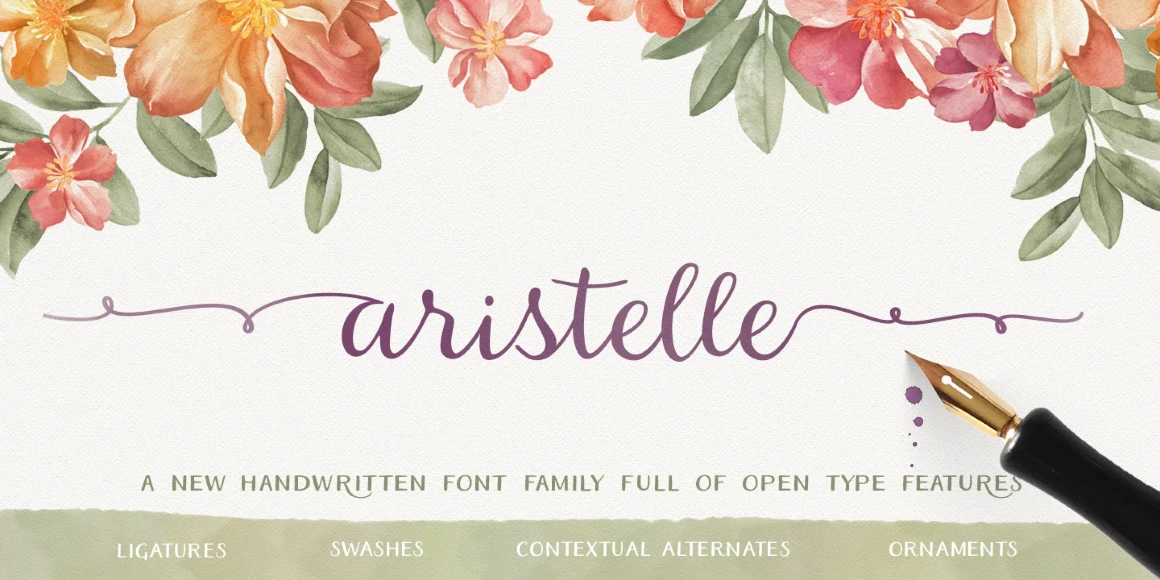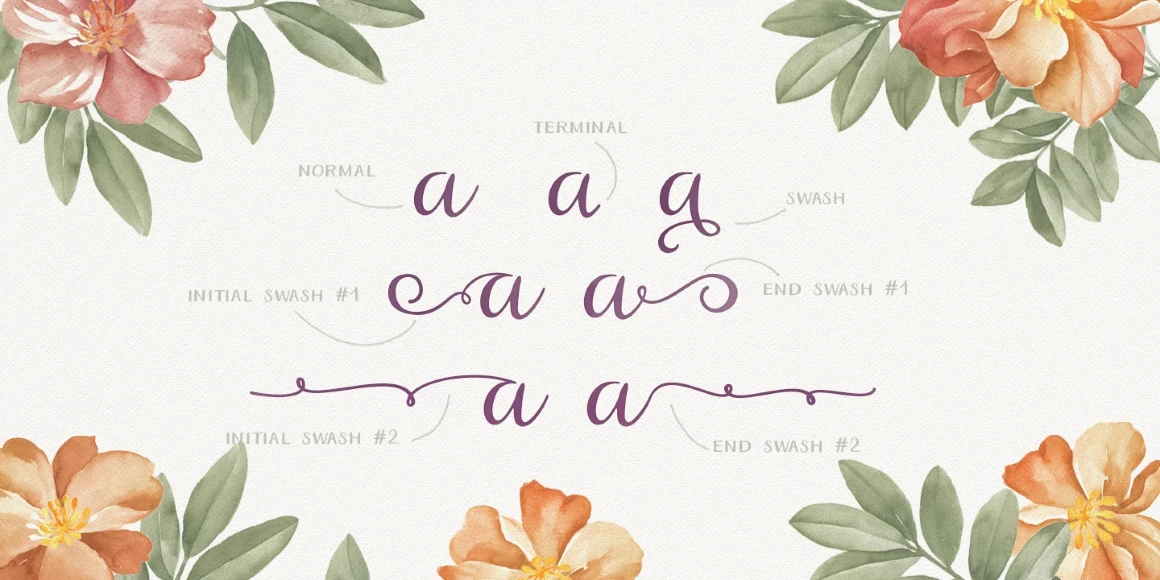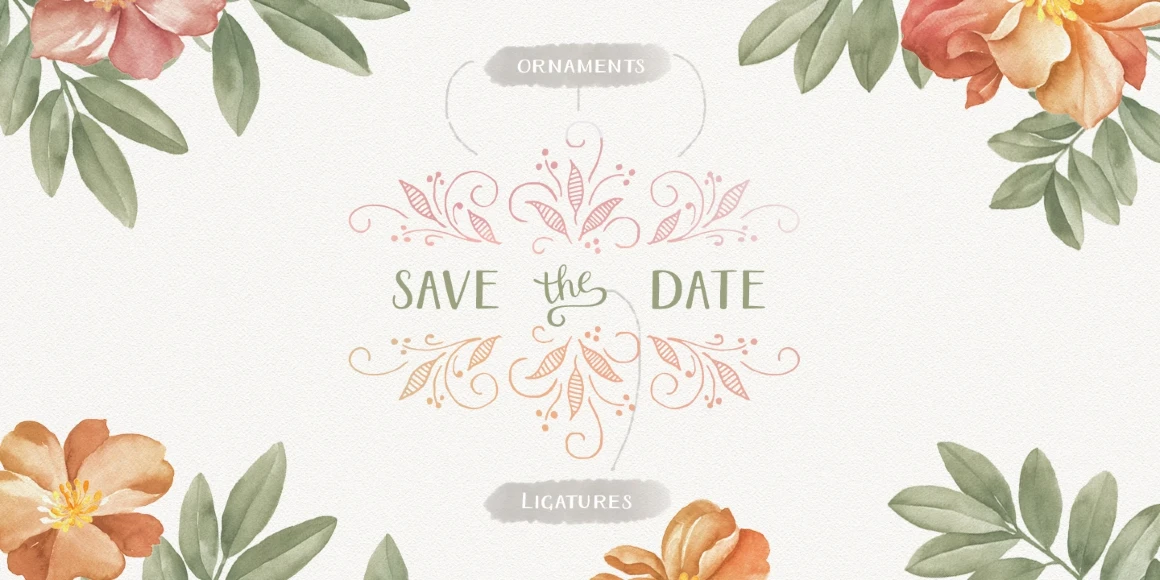
Aristelle Script
From My Creative Land
Aristelle Family is a beautiful, hand-lettered script created using a Leonardt III EF nib. The genteel script contains ample calligraphic features such as initial and terminal swashes, ligatures, and ornaments for a more natural look. The Sans and Sans Condensed are friendly and ever-so-perfect complements to Aristelle Script. All three fonts can be combined in different ways to help you create organic, stylish, and full-of-character designs.
Designed by Elena Genova
Initial Forms
Final Forms